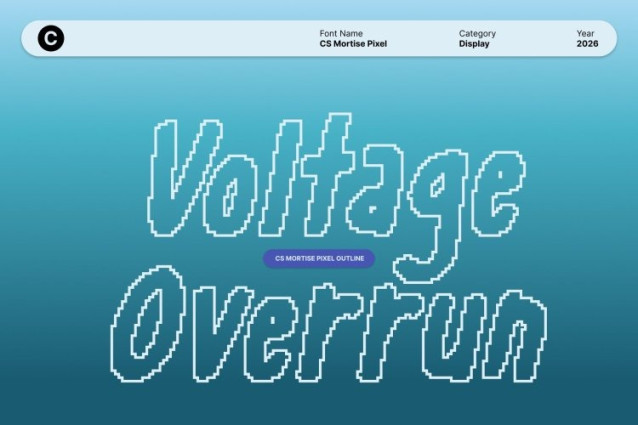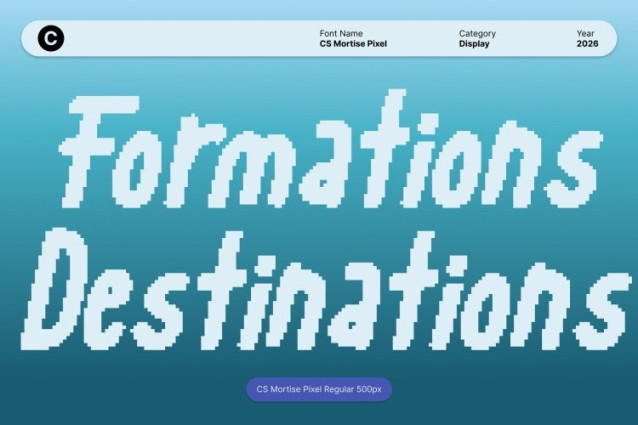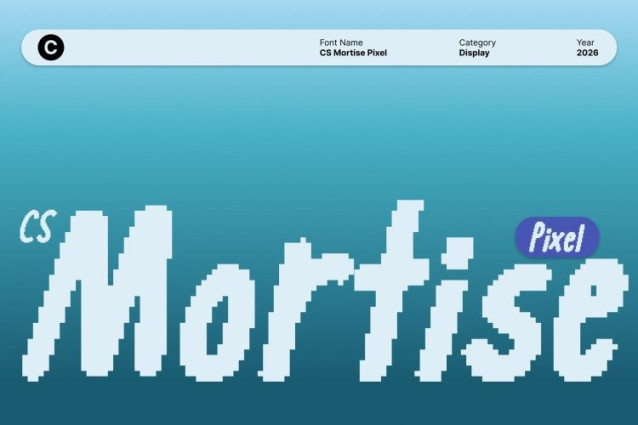
CS Mortise Pixel Font This brings the warmth and expressiveness of the original handwritten font into a pixel-perfect display version. Its organic shapes are preserved but structured with sharp pixel edges, giving every letter a bold, digital presence while maintaining its casual, approachable character.
Playful Pixel Forms for Engaging Design
The hand-drawn energy translates into slightly blocky, pixel-inspired strokes, creating a unique visual rhythm. Each character feels lively and personable, making this font perfect for digital posters, retro game titles, social media graphics, or creative branding that wants to combine playfulness with modern screen clarity.
Expressive Energy Meets Digital Clarity
This font captures the dynamic, handcrafted flow of the original font while ensuring it reads clearly in digital environments. Its expressive pixel detailing adds a quirky, friendly personality, making text feel both human and visually striking.
Versatile for Creative and Digital Applications
From invitations and playful packaging to online graphics, banners, and editorial layouts, adapts effortlessly. It’s ideal for projects that need a handcrafted vibe with a bold, modern pixel twist bringing warmth, approachability, and eye-catching style to every design.